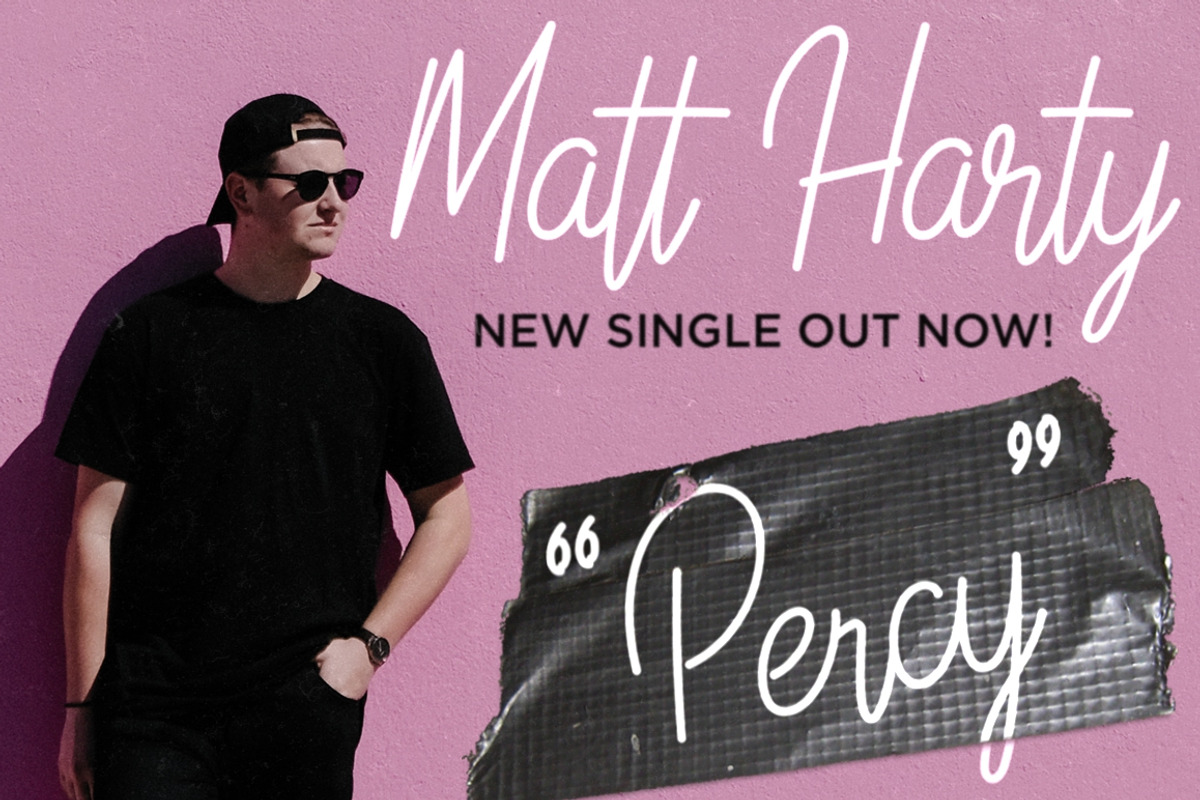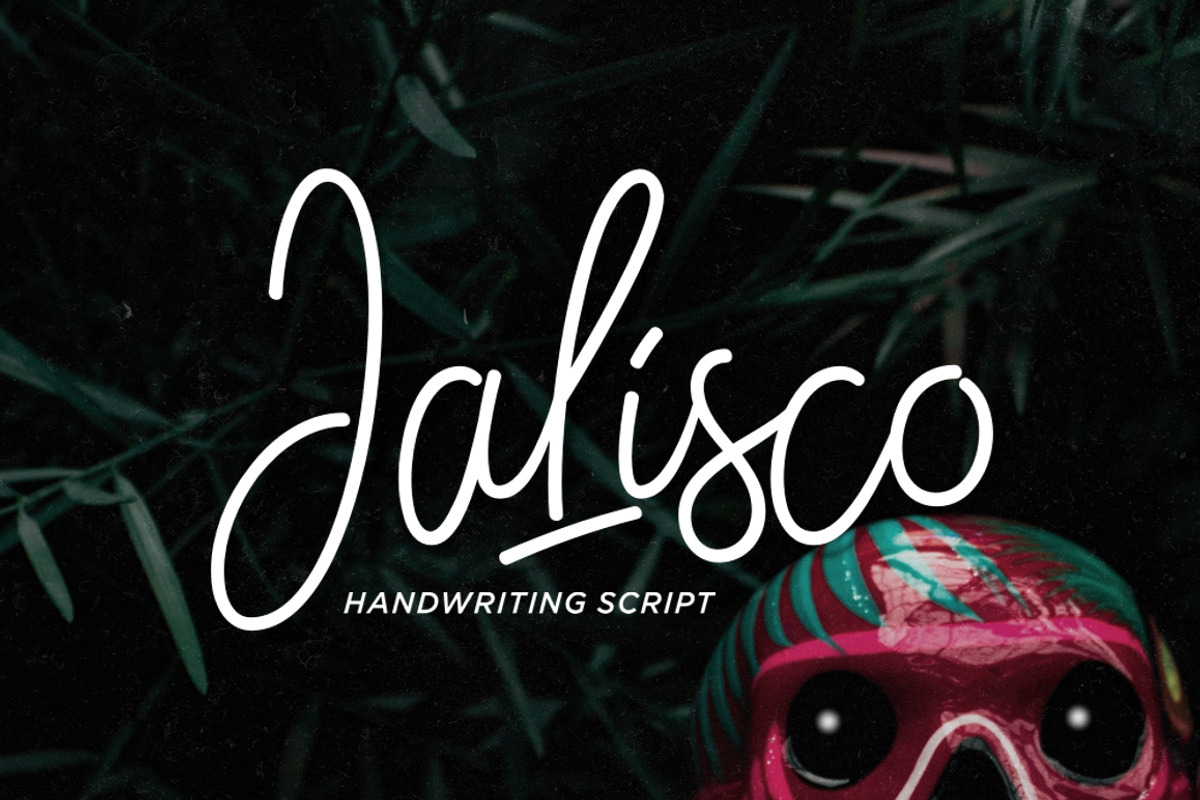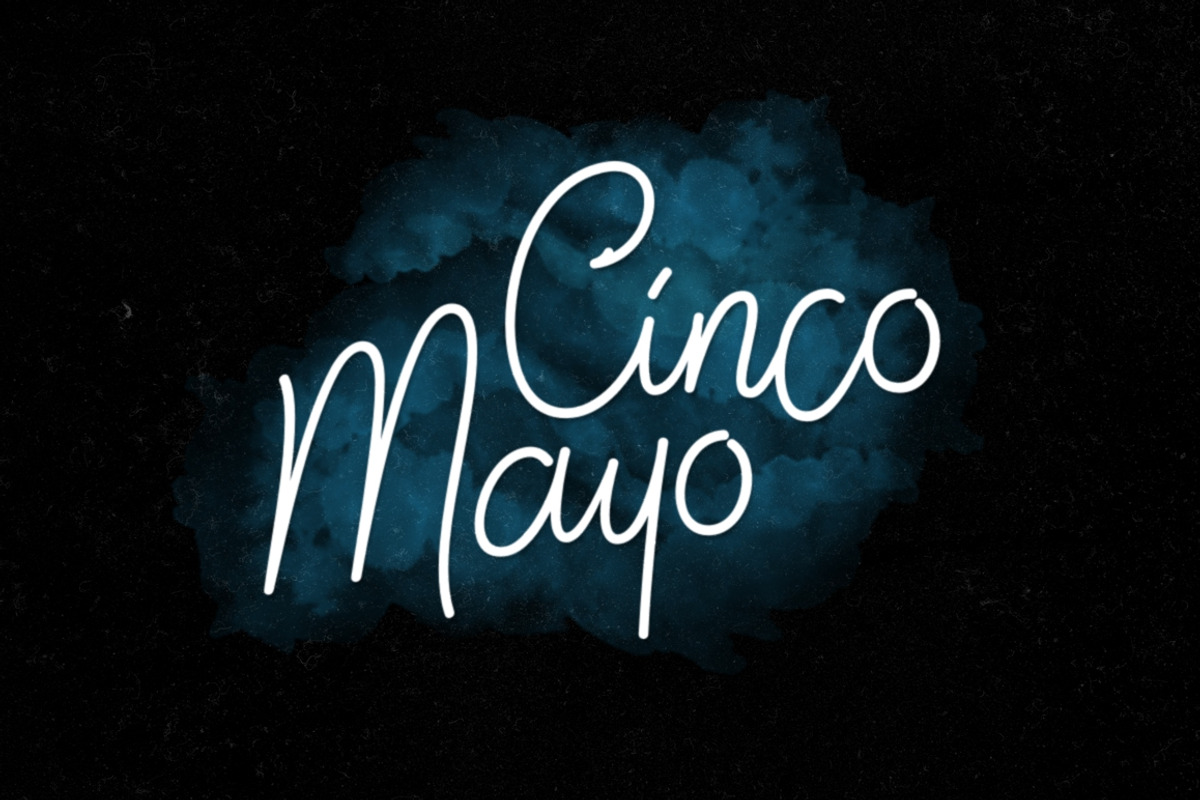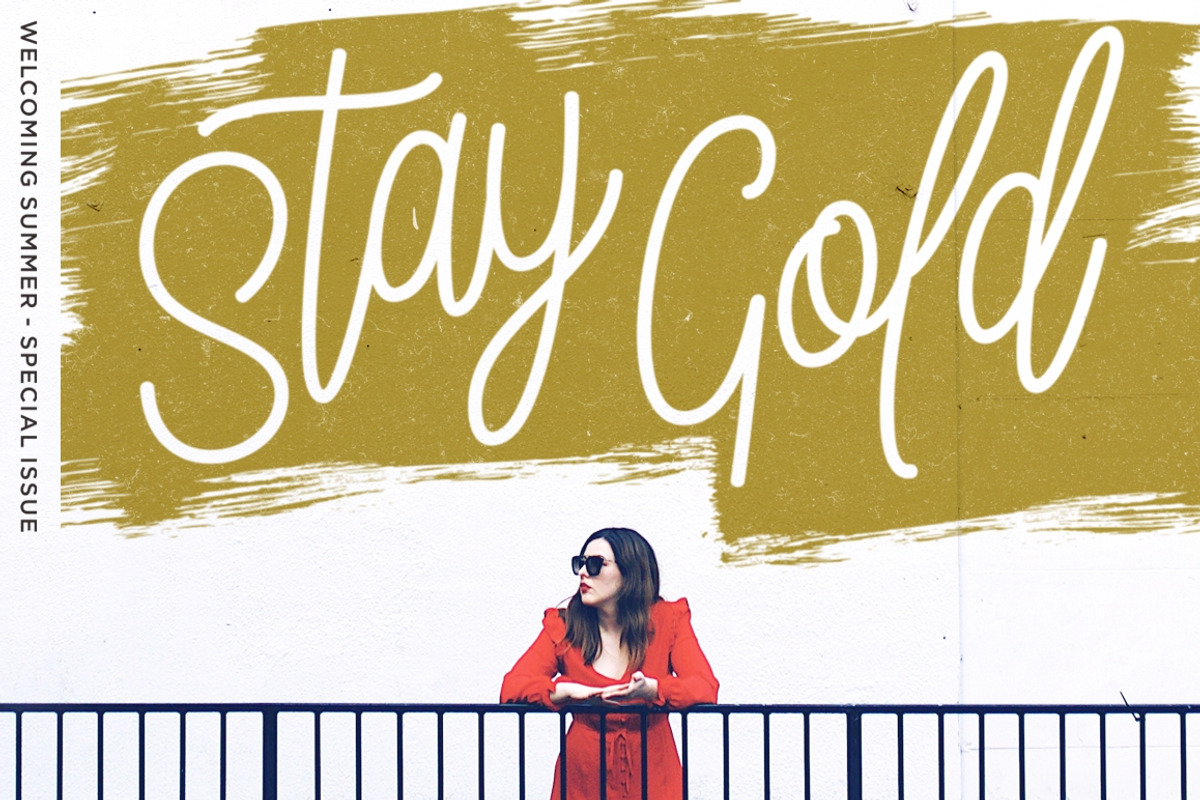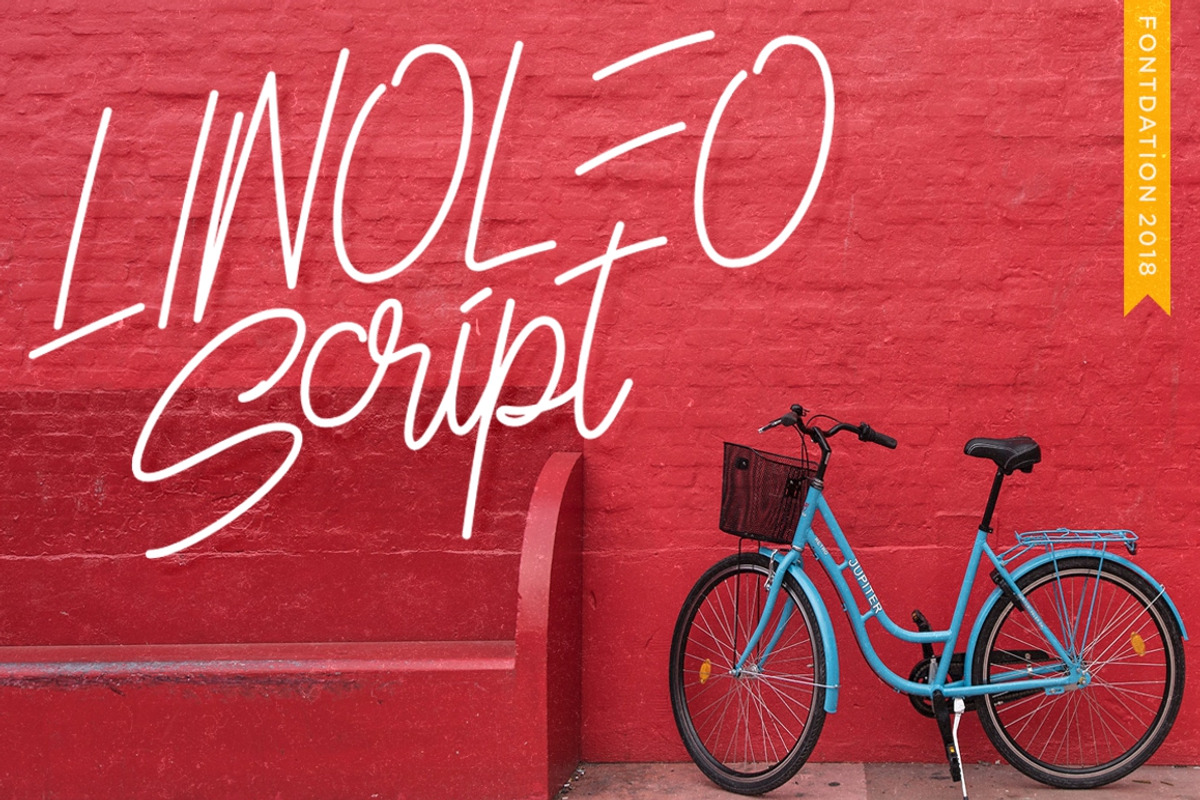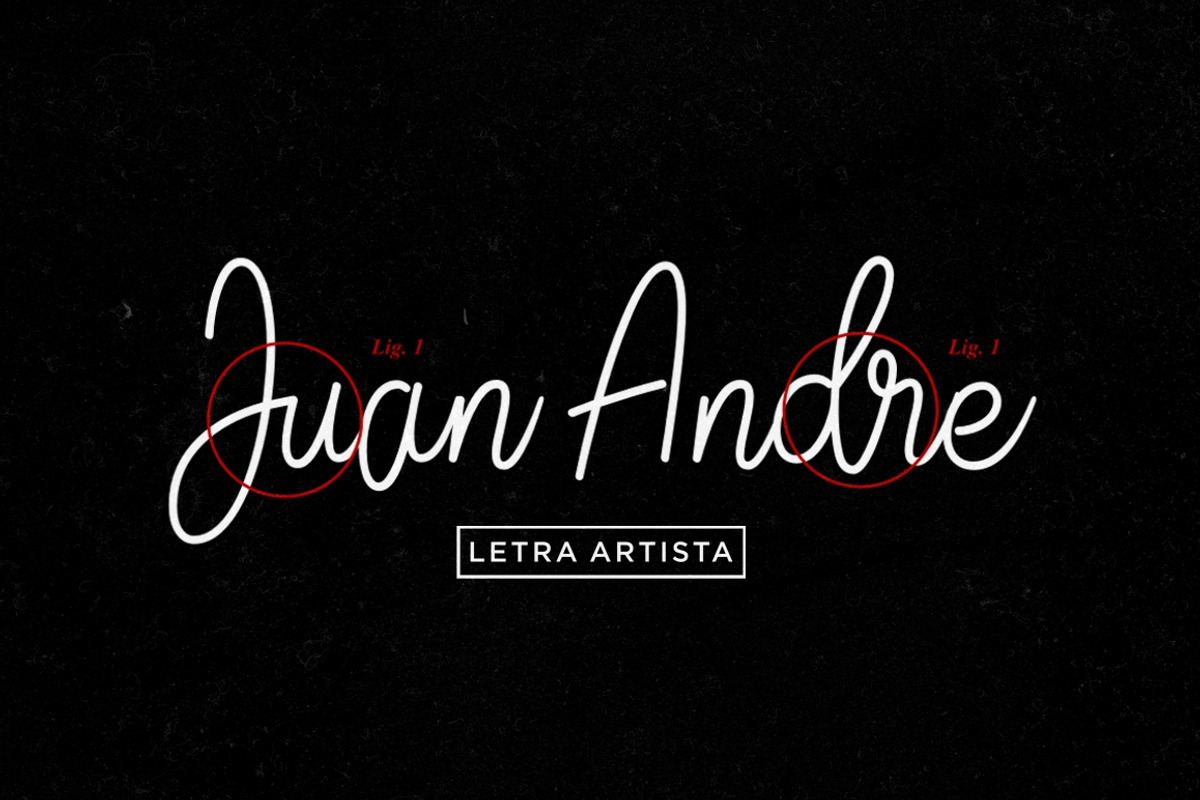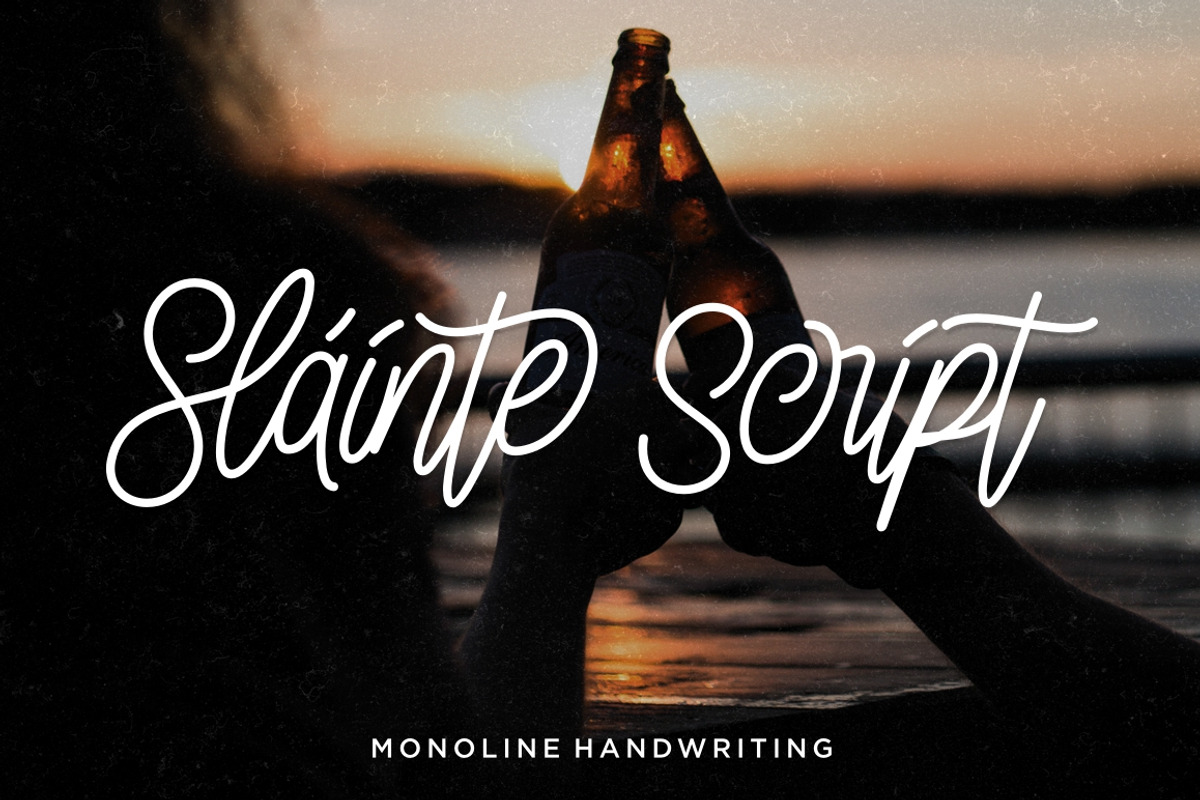
Monoline Script Collection - 3 Fonts
Introducing our 3 in 1 Monoline Script Collection, a bundle of our latest three monoline script(s). Suits best for almost any kind of projects; wedding invitations, adventurous-hipster posters, t-shirt designs, faux neon sign, etc. Packed with lots of OpenType features to enhance the natural lettering feel. Get these three beautiful handwriting-style script in one wonderful price. Normal price is at $45, with this bundle/collection you can get them for $15 only.
- Jalisco Script Regular
- Linoleo Script Regular
- Slainte Script Regular